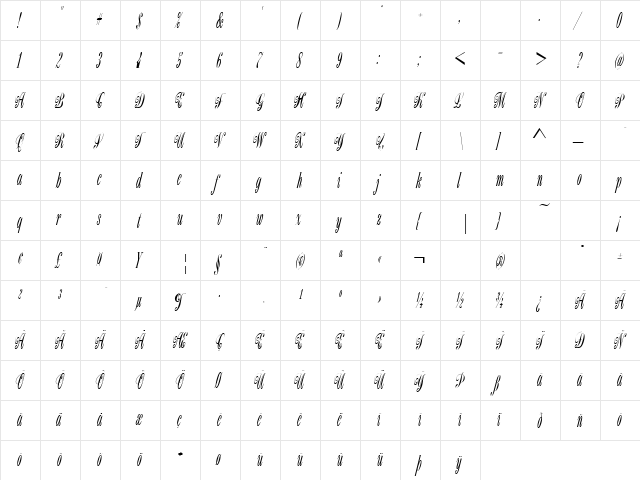
Bordeaux ICG Script
Design Context for Bordeaux ICG Typeface
Bordeaux ICG brings a calligraphic fluidity to the page — its connecting strokes and expressive curves give it an unmistakably human quality.
Font Pairing: Combine Bordeaux ICG with a simple geometric sans for maximum contrast — the tension between flowing curves and clean structure is a classic typographic pairing.
Pro Tip: Pair Bordeaux ICG with a clean sans-serif for supporting text. The contrast between fluid script and geometric structure creates an elegant typographic hierarchy.